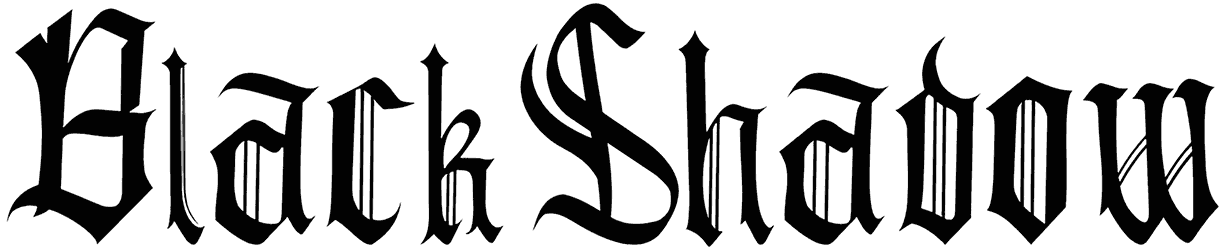
Blackshadow Font
It’s time to brew your text on your slip to uncover what’s formed like witchcraft through the traditional effect of this gothic font. Its jagged design makes it fabulous for drawing the eye toward your final result!
So, save time and gain Blackshadow to take your designs to a new level. Just put this retro font in your next design, like time-honored posters, social media posts, stickers, or any others, to see how it goes.